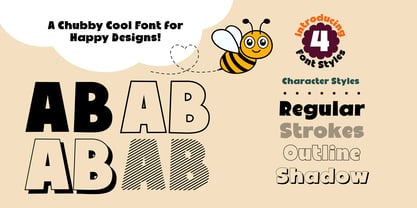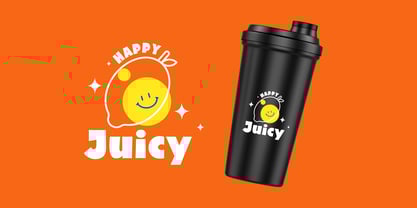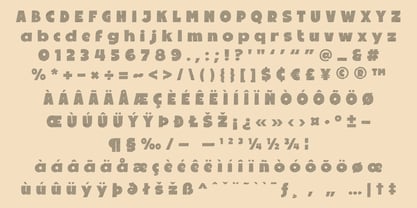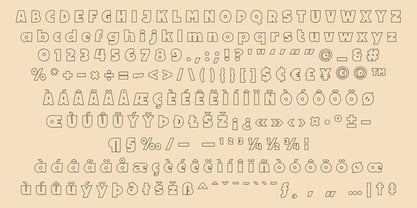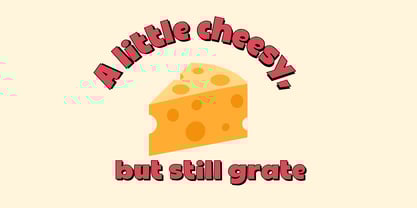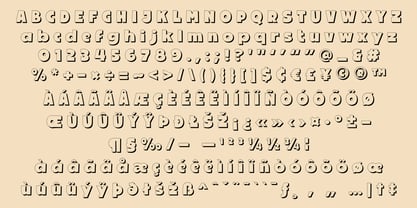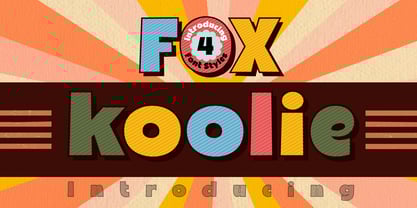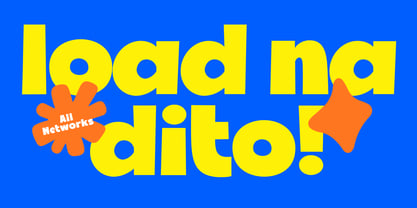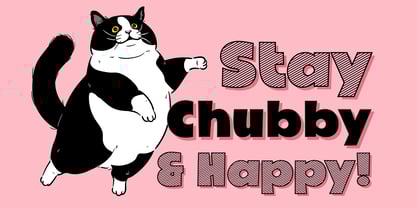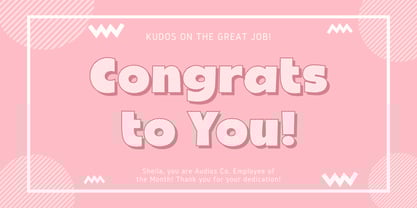
Fox Koolie
The Fox Koolie Font Family was designed by Rattana Rattanawan and published by Fox7. Fox Koolie contains 4 styles and family package options. More about this family
🦊 Fox Koolie – A Cool Font Family (4 Styles)
Say hello to Fox Koolie – a playful and chunky display font family packed with retro vibes and happy energy! Whether you're designing for kids, party prints, quirky packaging, or bold headlines, Fox Koolie brings a splash of fun to your creative toolkit.
This font was designed with joy in mind — bold shapes and a cool throwback aesthetic that instantly makes your designs pop!
✨ What’s Inside: Fox Koolie comes in 4 unique styles that are made to mix & match for more fun:
ꕥ Regular – clean and chubby, great for everyday bold statements
ꕥ Strokes – a diagonal-line textured style for extra movement
ꕥ Outline – a simple outlined version for layering or standalone use
ꕥ Shadow – bold with a playful 3D drop shadow to add depth and retro coolness
Let your designs smile with Fox Koolie! Mix styles, layer them up, and get creative with the bold, bubbly charm of this font family. 🎉